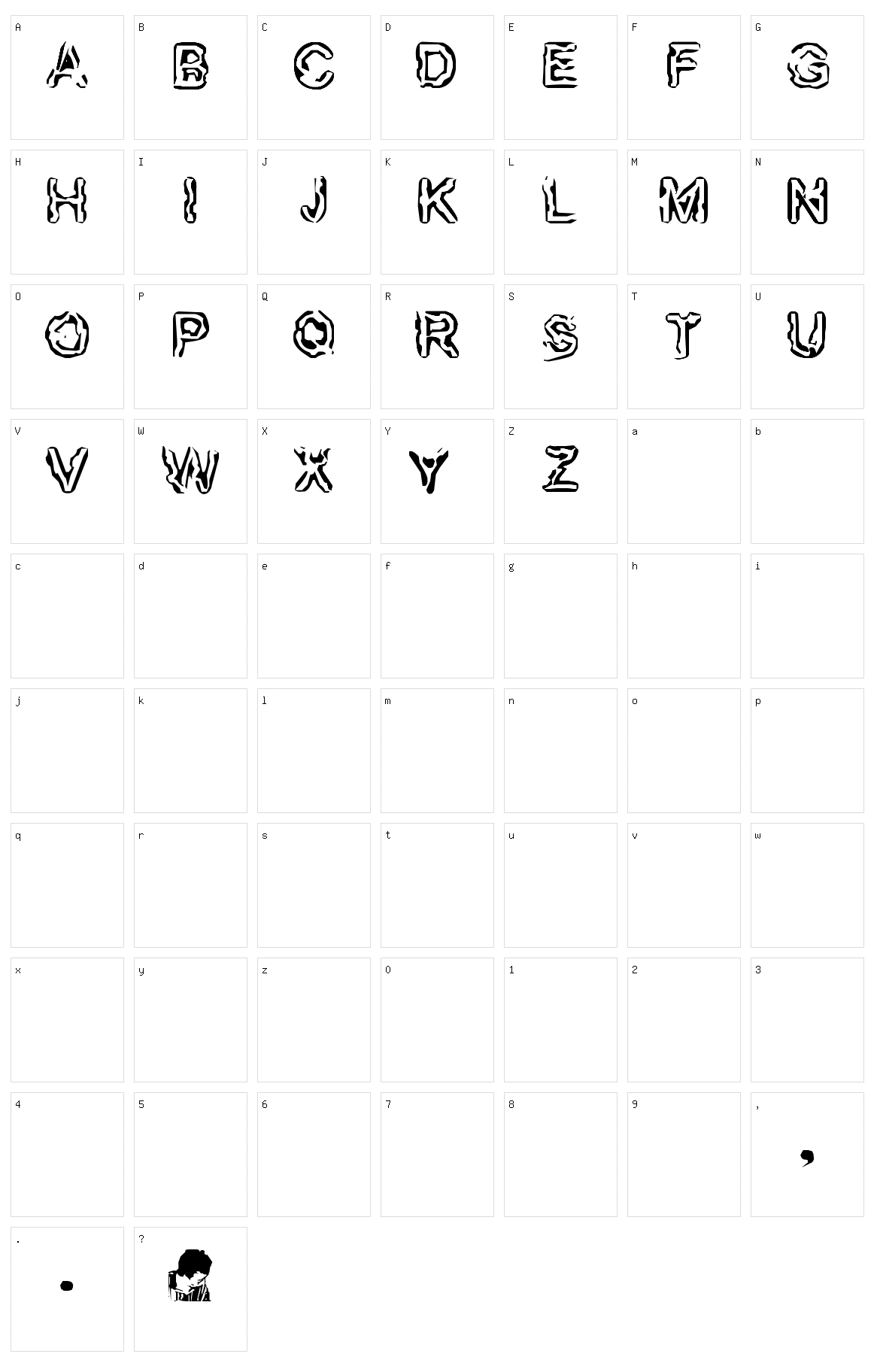
The free font Fingered Flesh is carefully designed by Mr.Fisk Fonts, showcasing a thoughtful balance of creativity and usability and falls under the Destroy font style. When you download the ZIP file, it contains only 7.61 KB of font files, making it lightweight and quick to download. Please review the license details below to understand permitted usage and distribution rights. If license information is not available, we recommend using this font for personal projects only or contacting the author directly for commercial usage permissions.